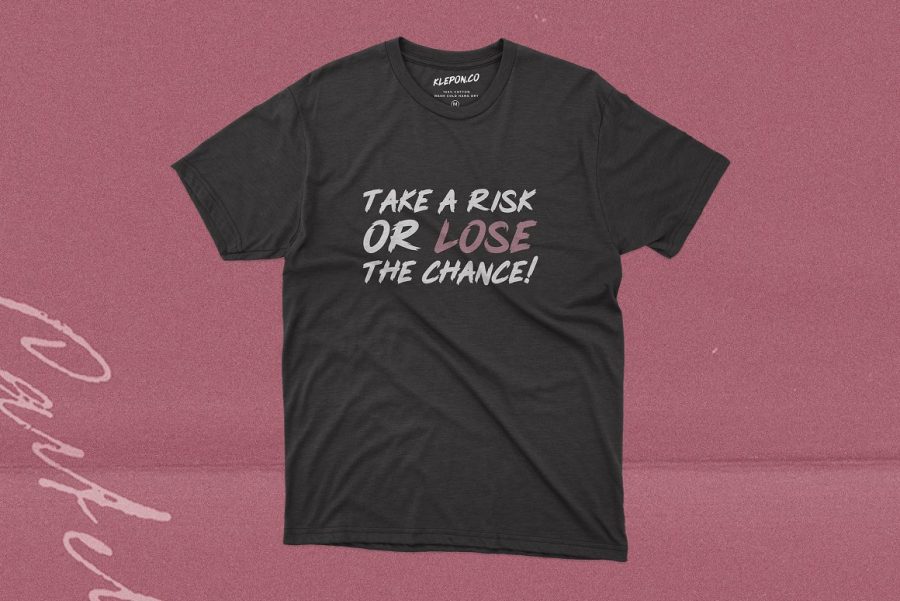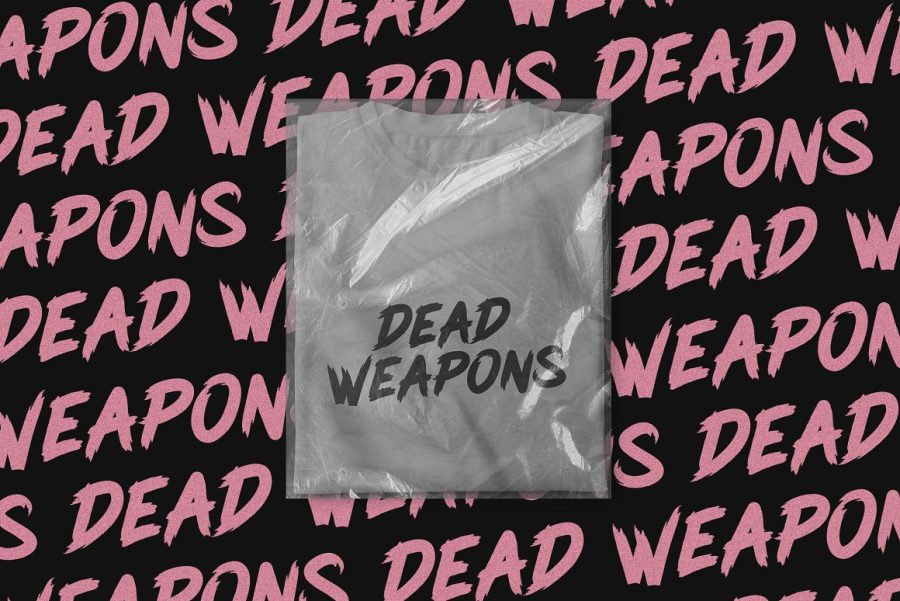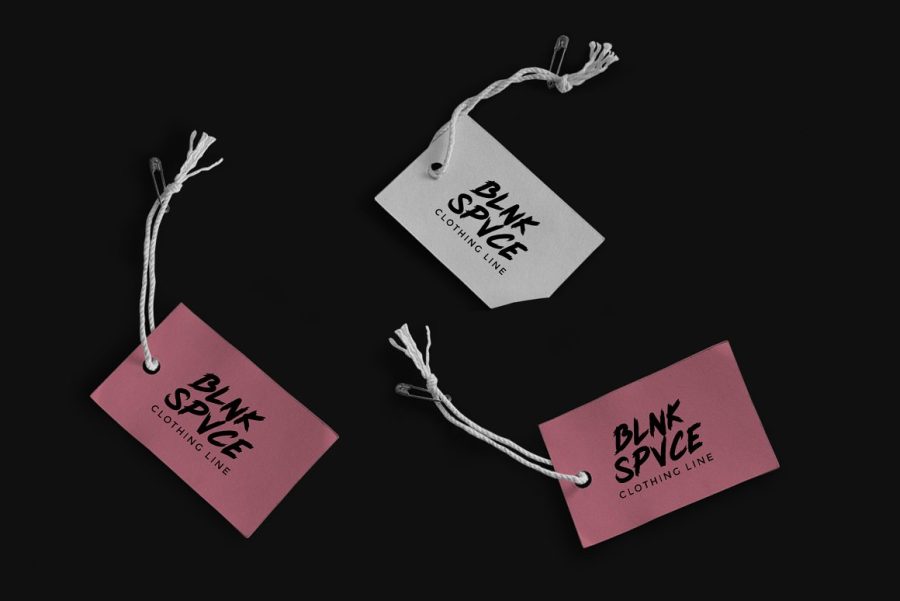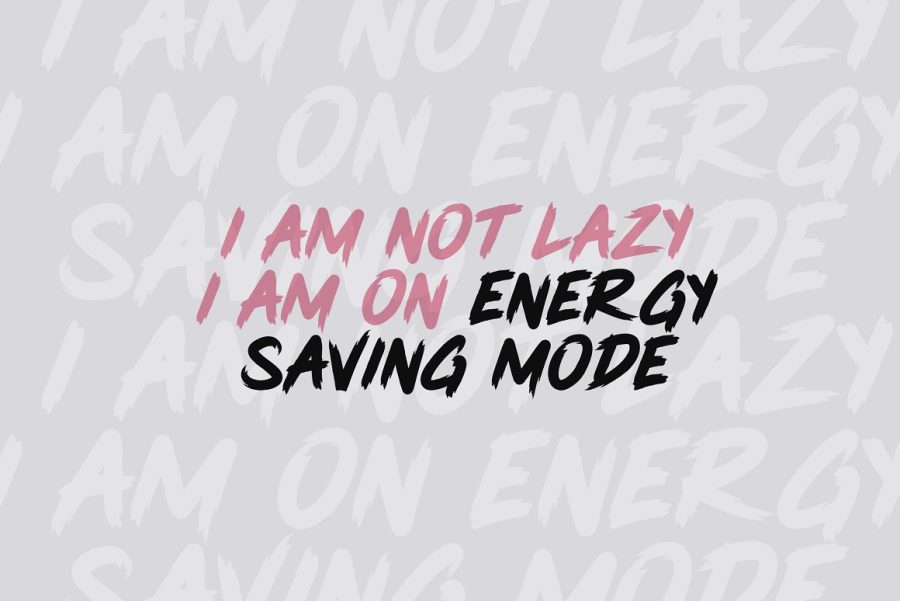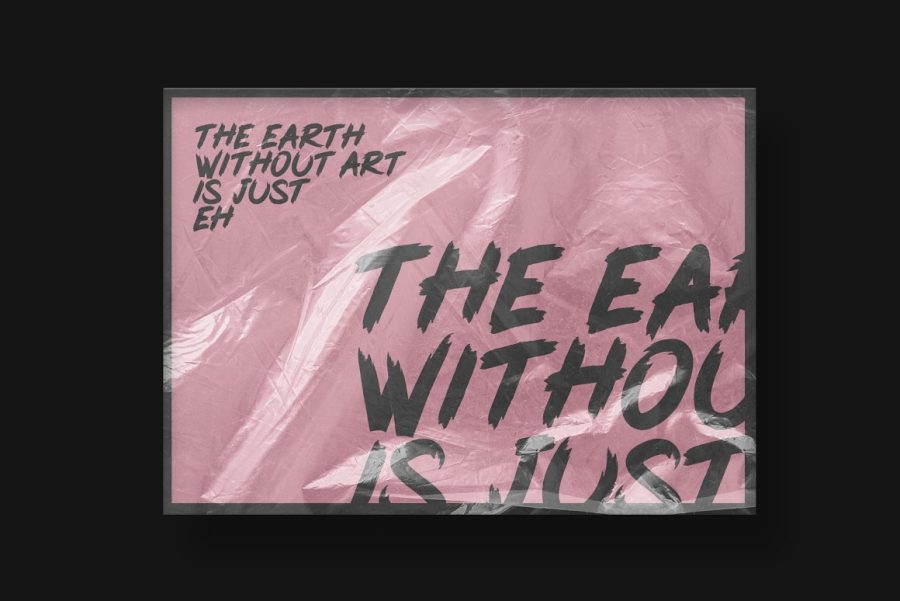
Pink Blue - Brush Display font
Description
Pink Blue is a vibrant and energetic brush font by Rometheme, designed to make a bold statement. With its dynamic and hand-painted style, this font is perfect for projects that require a lively, modern, and expressive aesthetic. The combination of edgy strokes and playful vibes makes it stand out in both digital and print applications.
Key Features:
1. Bold Brush Style: The rough, hand-drawn strokes create a striking, artistic look with a touch of personality.
2. Energetic and Playful: Ideal for projects that demand attention and evoke excitement or creativity.
3. Versatile Applications:
• Social media posts
• Posters and event promotions
• Product packaging
• Apparel and merchandise
• Music or entertainment branding
4. High Contrast Colors: Works exceptionally well with bright and bold color schemes for a visually impactful design.
Ideal For:
• Graphic designers working on fun, youthful, or pop-culture-inspired projects.
• Social media managers looking to create engaging and eye-catching visuals.
• Brands and businesses in the fashion, music, or lifestyle industries seeking bold typography.
Applications:
• Event Promotions: Perfect for concert posters, party flyers, or festival advertisements.
• Branding: Great for edgy or playful logos in fashion, beauty, or entertainment.
• Merchandise Design: Suitable for t-shirts, tote bags, and accessories.
• Social Media Graphics: Excellent for Instagram posts, stories, or bold captions.
• Packaging: Ideal for trendy products like cosmetics, beverages, or snacks.
With its high-energy and dynamic style, Pink Blue is the go-to choice for designs that need to stand out and capture attention. Whether itโ€™s for branding, promotions, or digital content, this font adds a modern, fun, and creative touch to any project.